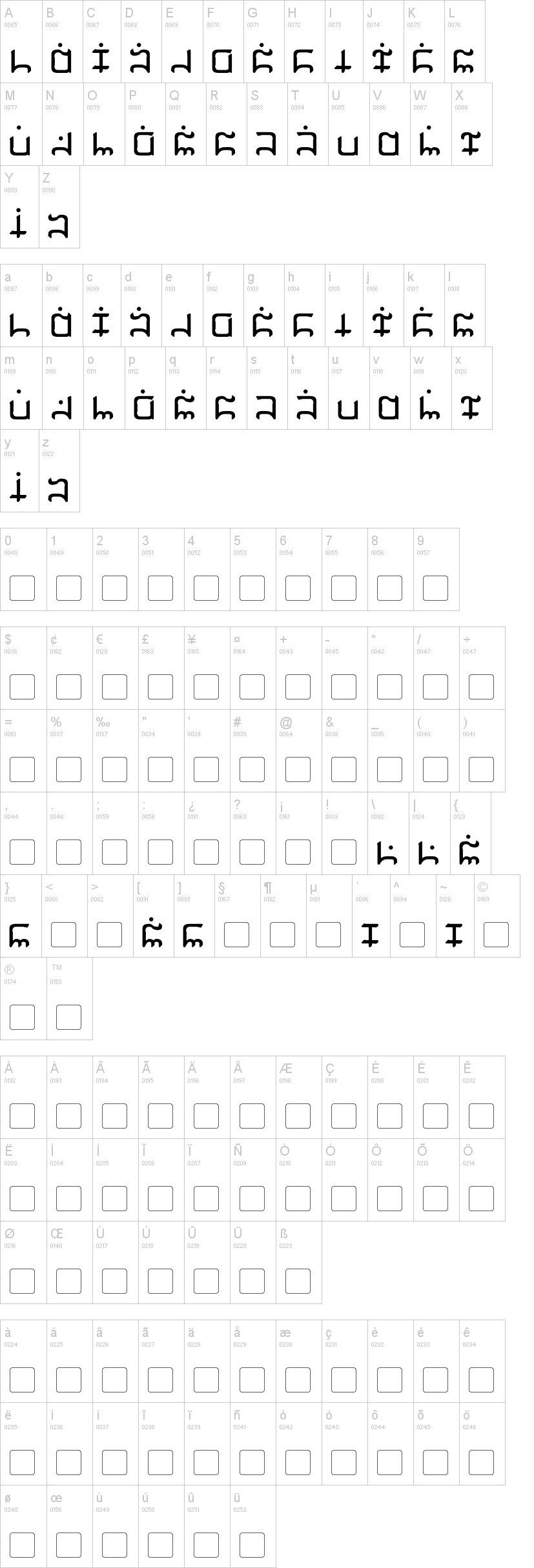
Gargish Italic.otfGargish Bold.otfGargish Bold Italic.otfNote of the authorGargish is designed after the written gargoyle language found in Origin Games Ultima VI: The False Prophet role-playing game. It is a simple runic font with curved accents for most of the glyphs. This font includes all canon characters and comes in regular, bold, italic, and bold-italic weights.